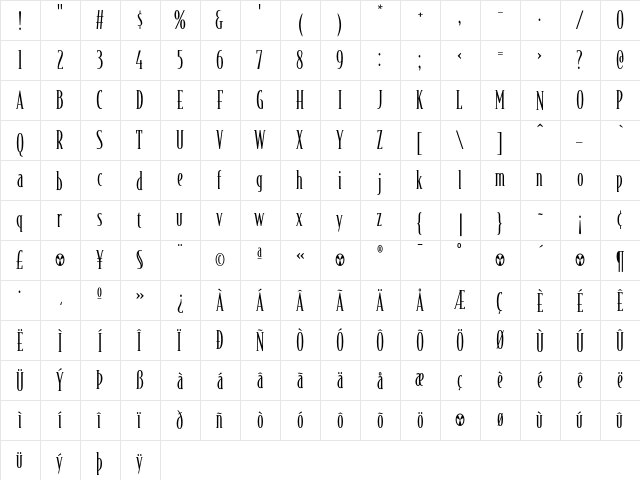
BodegaSerif Light
Design Context for BodegaSerif Typeface
BodegaSerif brings classic typographic sensibility to the table — its serifs and measured letterforms reflect centuries of print heritage. The delicate stroke weight brings airiness and refinement to layouts.
Pro Tip: Use BodegaSerif with generous line-spacing for the most refined reading experience — its light weight benefits from room between lines.